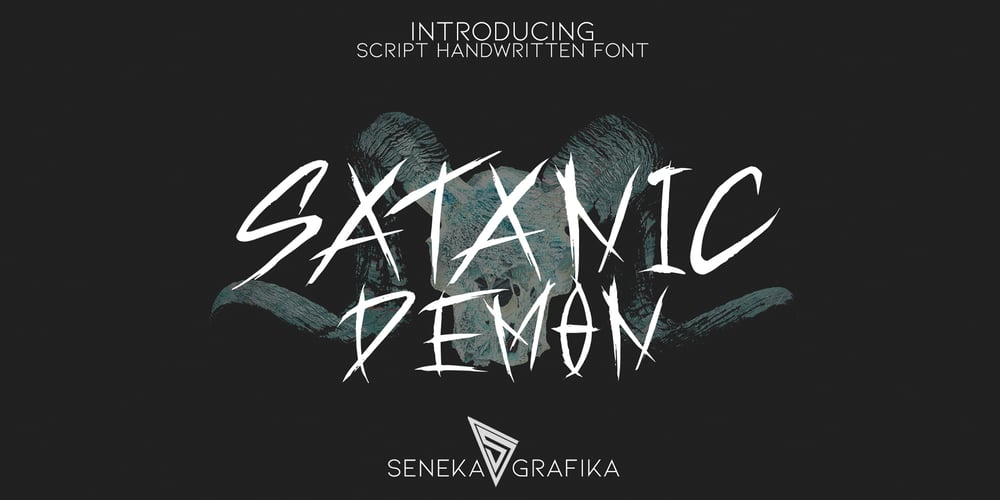
Satanic Demon
Satanic Demon font
Satanic Demon Font Family was designed by Muhammad Helmi and published by Senekaligrafika. Satanic Demon contains 1 styles and family package options. “Satanic Demon” Has hard strokes and a signature styles that speak to instant nightmare sensations,it was inspired by horror and thriller movie posters from the old era.”Satanic Demon” will help you to create special and touching typographical design for your horror and dark projects, for branding, labeling, clothing, movie title, album cover, logos and many more.The owner of endless possibilities!